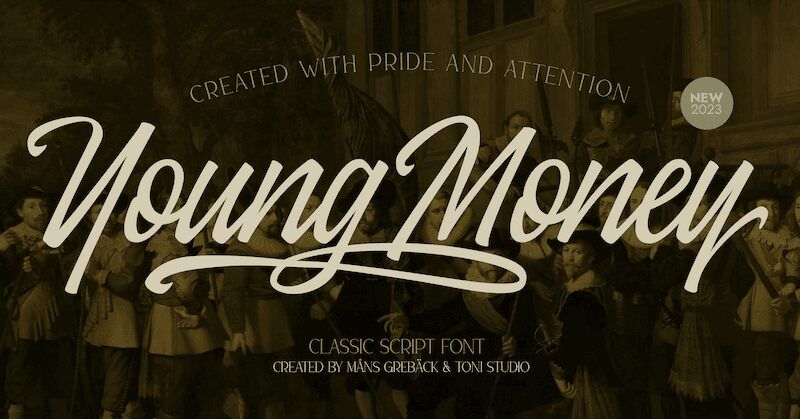
Young Money is a stunning calligraphy font from the talented Mans Greback, perfect for adding an elegant touch to your creative projects. With its semi-light weight and semi-condensed width, this font exudes sophistication and style. Its flowing curves and ornate details make it a great choice for creating eye-catching logos, branding materials, and invitations. Use it to add a touch of class to your wedding stationery or elevate your product packaging design with its refined aesthetic. Whatever your project may be, Young Money is sure to impress with its timeless elegance and impeccable craftsmanship.
Use underscore _ after a word to make a swash.
Example: Wild_
Use multiple underscores to make longer swashes.
Example: Bonfires_____
Use # after any letter to make a swash version.
Example: Spring#Zone#